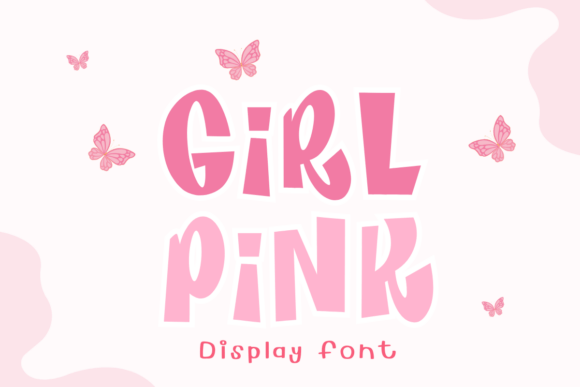
Introducing Girl Pink Font: The Ultimate Choice for Girly and Playful Themes
Are you looking for a font that can add a touch of femininity and playfulness to your designs? Look no further than Girl Pink Font, a soft and stylish display font designed specifically for girly and playful themes. With its curvy forms and sweet color palette, this font is perfect for creating party invitations, apparel, stickers, and all things pretty.
What is Girl Pink Font?
Girl Pink Font is a display font that is designed to make a statement. Its curvy forms and sweet color palette make it perfect for creating designs that are fun, feminine, and playful. The font is ideal for use on party invitations, birthday cards, and other celebrations where a touch of whimsy is desired.
Key Features of Girl Pink Font
- Curvy Forms: Girl Pink Font features curvy forms that give it a soft and feminine look. The curvy lines and rounded edges make it perfect for creating designs that are playful and fun.
- Sweet Color Palette: The font comes with a sweet color palette that is perfect for creating designs that are bright and cheerful. The colors are carefully chosen to complement each other and create a cohesive look.
- Display Font: Girl Pink Font is a display font, which means it is designed to make a statement. It is perfect for use on headlines, titles, and other prominent text elements.
Uses of Girl Pink Font
Girl Pink Font is a versatile font that can be used for a variety of design projects. Here are some of the most popular uses of the font:
- Party Invitations: Girl Pink Font is perfect for creating party invitations that are fun and playful. The font can be used to create custom invitations for birthday parties, baby showers, and other celebrations.
- Apparel: The font can be used to create custom apparel that is fun and feminine. It is perfect for creating t-shirts, hoodies, and other clothing items that are designed for girls and women.
- Stickers: Girl Pink Font can be used to create custom stickers that are perfect for decorating laptops, water bottles, and other items.
- Social Media Graphics: The font can be used to create social media graphics that are fun and engaging. It is perfect for creating graphics for Instagram, Facebook, and other social media platforms.
Benefits of Using Girl Pink Font
There are many benefits to using Girl Pink Font in your designs. Here are some of the most significant advantages:
- Unique Look: Girl Pink Font has a unique look that sets it apart from other fonts. The curvy forms and sweet color palette make it perfect for creating designs that are fun and feminine.
- Easy to Read: The font is easy to read, even at small sizes. This makes it perfect for use on a variety of design projects, from party invitations to social media graphics.
- Versatile: Girl Pink Font is a versatile font that can be used for a variety of design projects. It is perfect for use on party invitations, apparel, stickers, and other design projects.
Tips for Using Girl Pink Font
Here are some tips for using Girl Pink Font:
- Use it for Headlines: Girl Pink Font is perfect for use on headlines and titles. It can be used to create bold and eye-catching headlines that grab the reader’s attention.
- Pair it with Other Fonts: The font can be paired with other fonts to create a unique look. It is perfect for pairing with sans-serif fonts and script fonts.
- Use it for Social Media Graphics: Girl Pink Font is perfect for use on social media graphics. It can be used to create graphics that are fun and engaging.
Girl Pink Font is a soft and stylish display font that is perfect for girly and playful themes. With its curvy forms and sweet color palette, this font is ideal for creating party invitations, apparel, stickers, and all things pretty. The font is easy to read and versatile, making it perfect for use on a variety of design projects.
- What is Girl Pink Font? Girl Pink Font is a soft and stylish display font designed for girly and playful themes.
- What are the key features of Girl Pink Font? The font features curvy forms and a sweet color palette.
- What are the uses of Girl Pink Font? The font can be used for party invitations, apparel, stickers, and social media graphics.